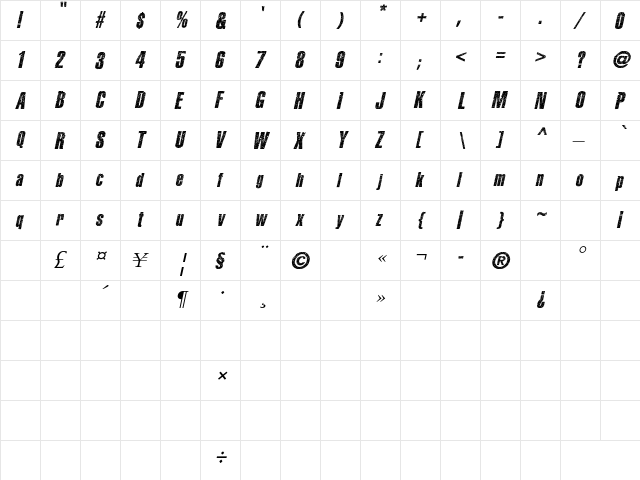
Momento Mori Italic
| Designer | John Flickinger |
Design Context for Momento Mori Typeface
Momento Mori is a composed and adaptable typeface that performs quietly and consistently across a wide range of design contexts. The dynamic lean of this cut emphasises speed and emphasis in any layout.
Pro Tip: Use Momento Mori for emphasis, pull quotes, and subheadings where its slanted energy can add rhythm to the layout.